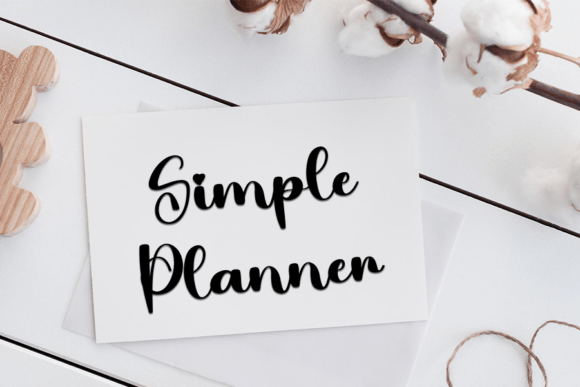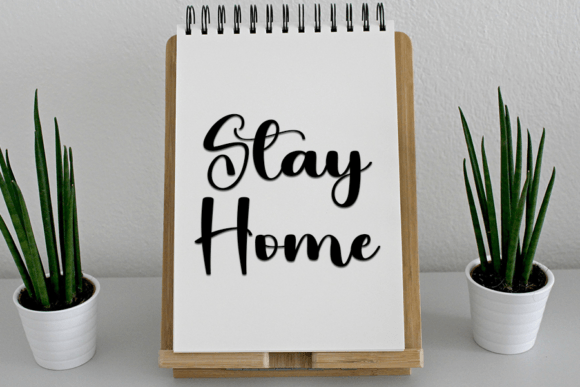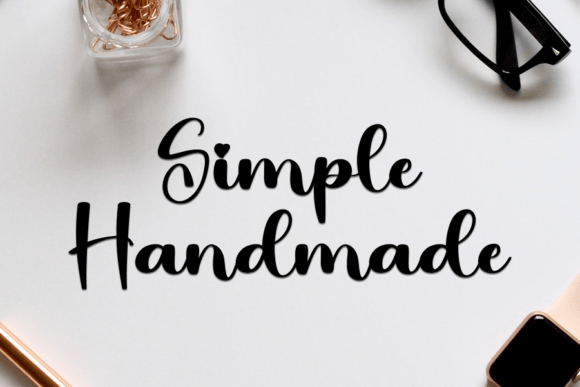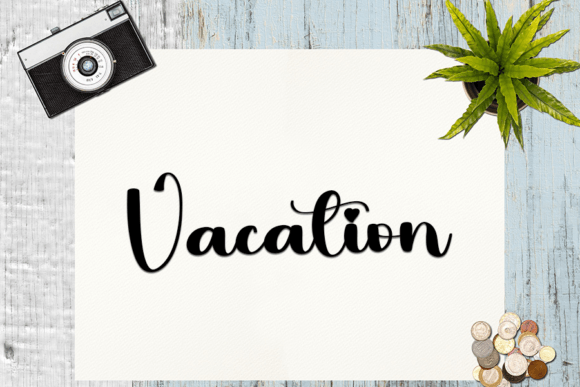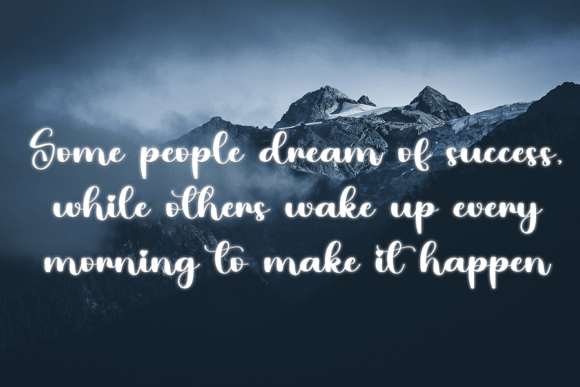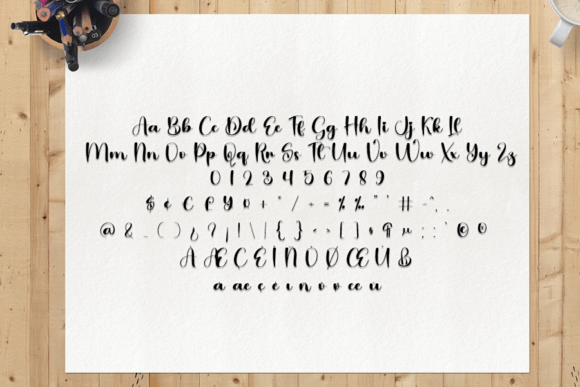
Introducing Drawing Font: Elevate Your Designs with a Delicate Handwritten Touch
Are you tired of using the same old fonts in your designs? Do you want to add a touch of elegance and uniqueness to your projects? Look no further than Drawing Font, a carefully crafted handwritten font that’s perfect for creating cool and eye-catching designs. In this article, we’ll explore the features and benefits of Drawing Font, and show you how to make the most of this versatile font in your designs.
What is Drawing Font?
Drawing Font is a delicate handwritten font that’s been carefully crafted to bring a touch of sophistication and whimsy to your designs. With its unique and elegant letterforms, this font is perfect for adding a personal touch to your projects. Whether you’re designing invitations, writing letters, or creating titles for food products, Drawing Font is the perfect choice.
Key Features of Drawing Font
- Handwritten elegance: Drawing Font features delicate, handwritten letterforms that add a touch of elegance to any design.
- Unique and quirky: This font’s unique character makes it perfect for designers who want to stand out from the crowd.
- Versatile: Drawing Font can be used for a wide range of projects, from invitations and letters to food products and titles.
- Easy to read: Despite its delicate nature, Drawing Font is easy to read, making it perfect for body text and headings.
Uses for Drawing Font
Drawing Font is a versatile font that can be used in a wide range of projects. Here are some ideas to get you started:
- Invitations: Use Drawing Font to create beautiful, handcrafted invitations for weddings, parties, and other special occasions.
- Letters: Add a personal touch to your letters with Drawing Font, perfect for writing to friends, family, or loved ones.
- Food products: Use Drawing Font to create labels, packaging, and branding for food products, such as baked goods, chocolates, and specialty foods.
- Titles and headings: Add a touch of elegance to your titles and headings with Drawing Font, perfect for blog posts, articles, and other written content.
Tips for Using Drawing Font
Here are some tips for getting the most out of Drawing Font:
- Use it sparingly: Because of its delicate nature, it’s best to use Drawing Font sparingly, such as for headings or titles.
- Pair it with other fonts: Experiment with pairing Drawing Font with other fonts to create a unique and eye-catching design.
- Adjust the size: Experiment with different font sizes to find the perfect balance for your design.
- Play with colors: Try out different colors and color combinations to add an extra touch of elegance to your design.
Drawing Font is a beautiful, delicate handwritten font that’s perfect for adding a touch of elegance and uniqueness to your designs. With its versatile nature and wide range of uses, this font is a must-have for designers and crafters looking to elevate their projects. Whether you’re designing invitations, writing letters, or creating titles for food products, Drawing Font is the perfect choice. So why not give it a try and see the difference it can make in your designs?